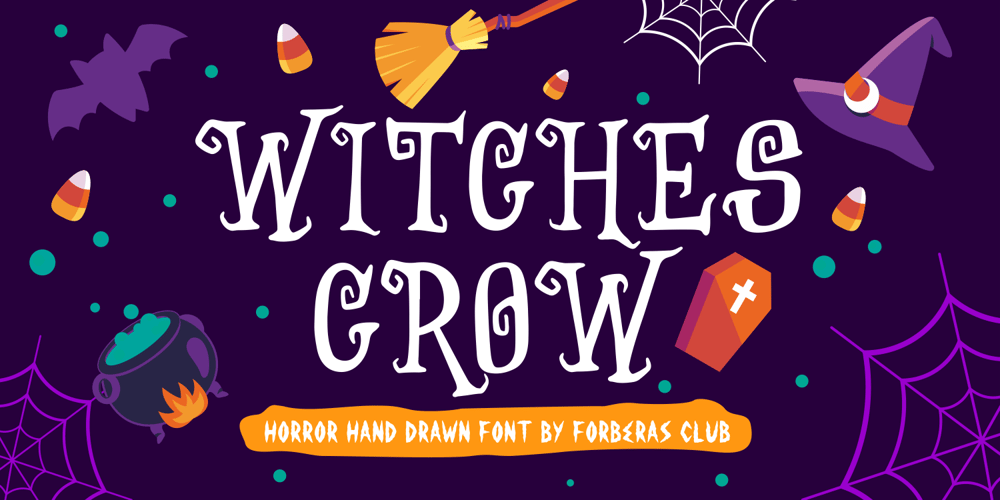
Witches Crow Font Family was designed by ANGGI HERMAWAN and published by Forberas Club. Witches Crow contains 1 styles and family package options. Witches Crow is a Halloween Treat by our team. It’s perfectly matches for any invitation type, and children theme, cartoon, poster, display, and comics.